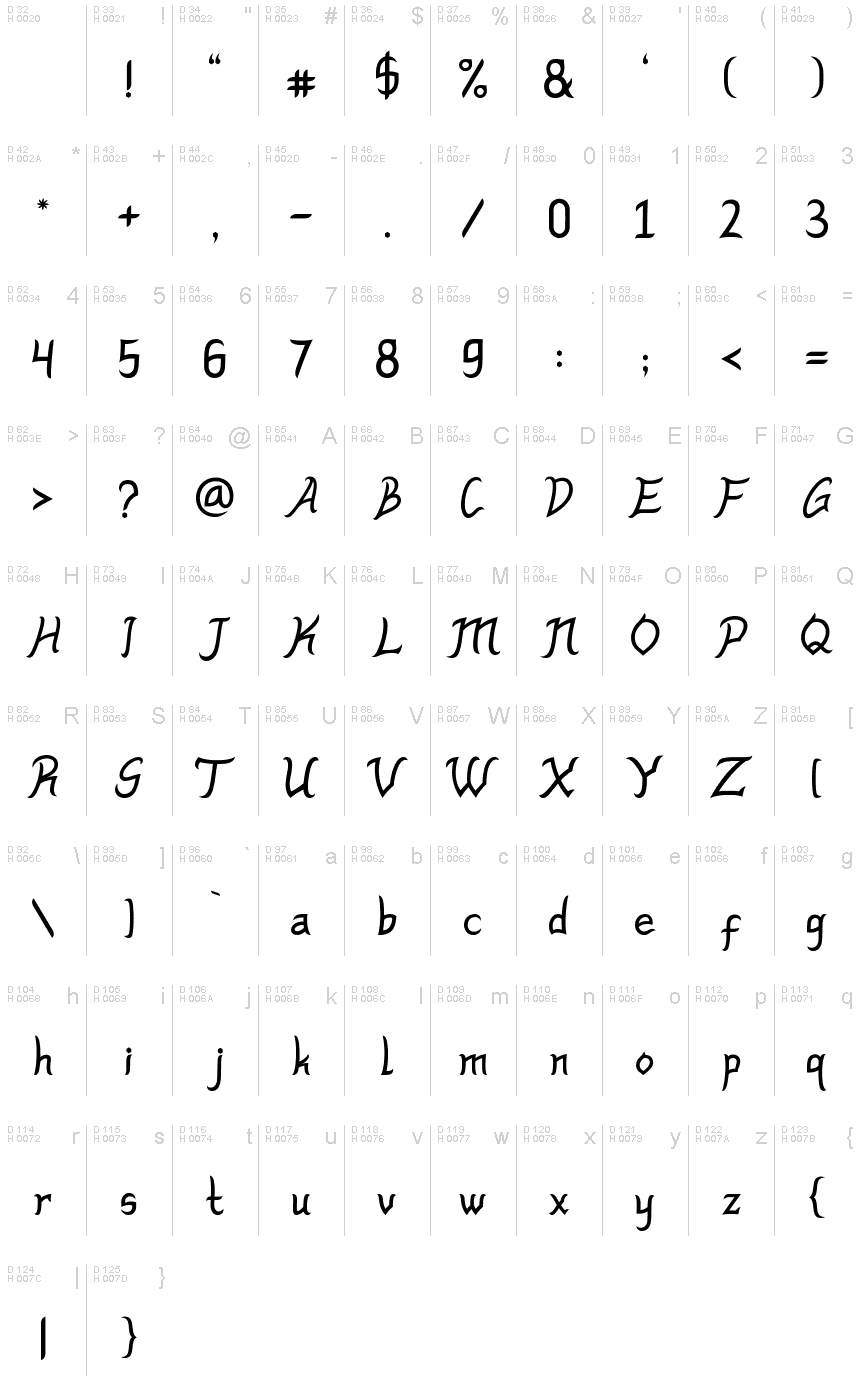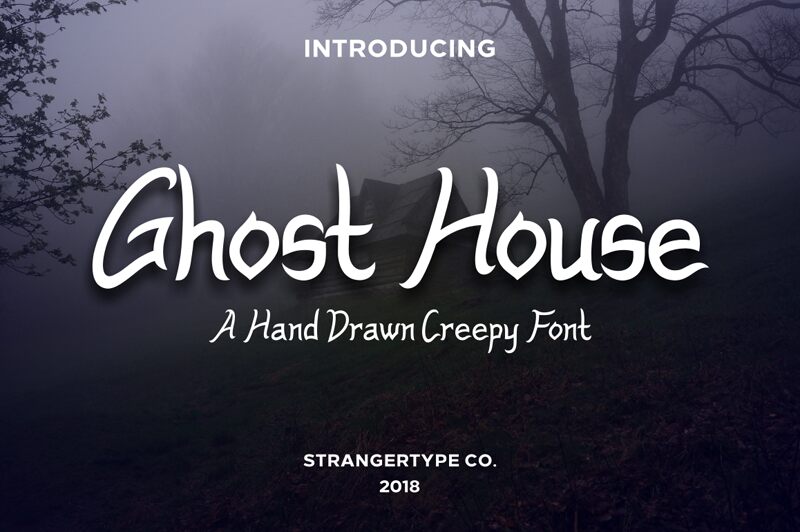
Ghost House
Ghost House is a spooky display font designed by Robbi Azis. With its hand-drawn style, this semi-light typeface is perfect for creating a chilling atmosphere in your design projects. Its unique and eerie appearance makes it suitable for a variety of projects, from Halloween invitations to horror movie posters. Use Ghost House to add an element of fear to your branding or make your website stand out with a spine-tingling headline. This font will surely grab attention and leave a lasting impression on anyone who sees it.